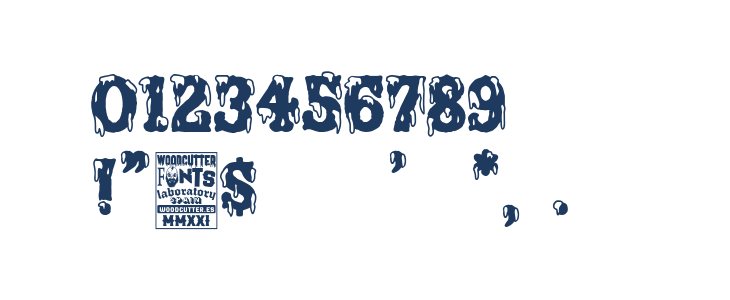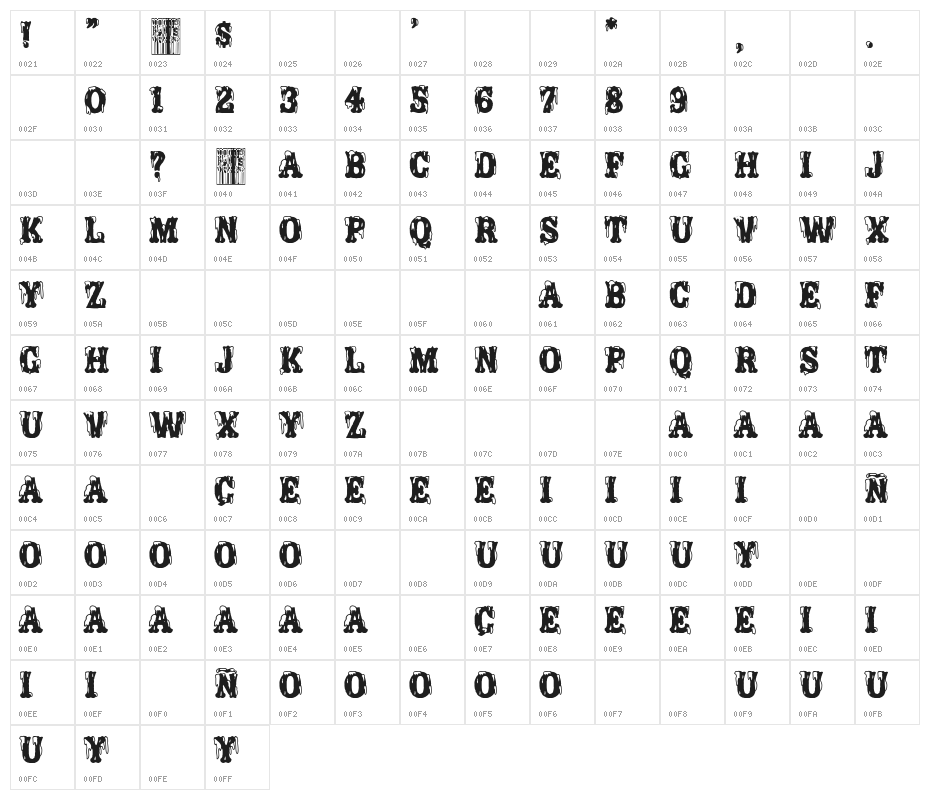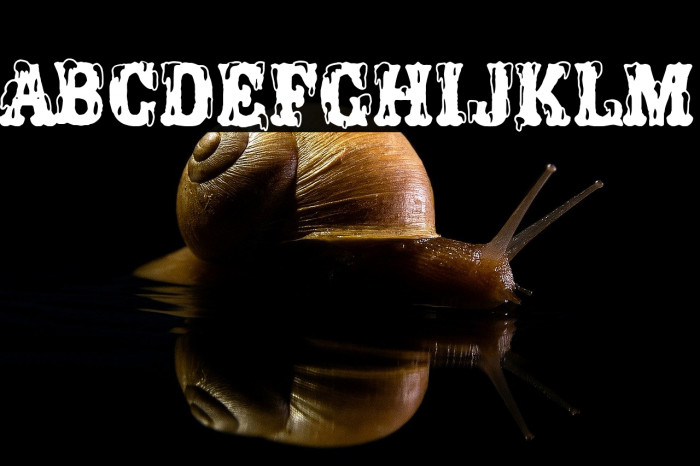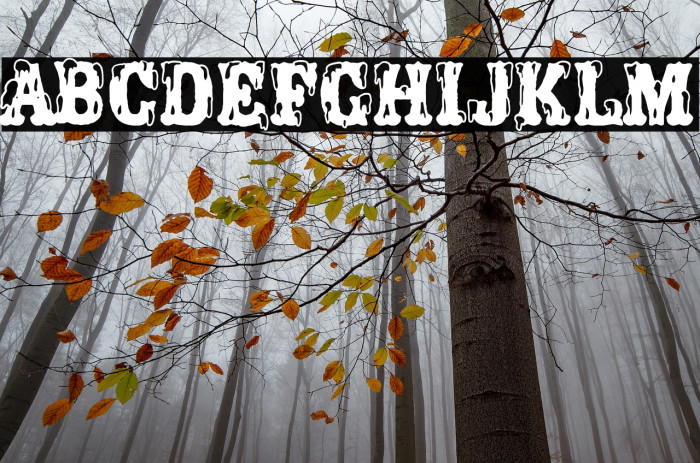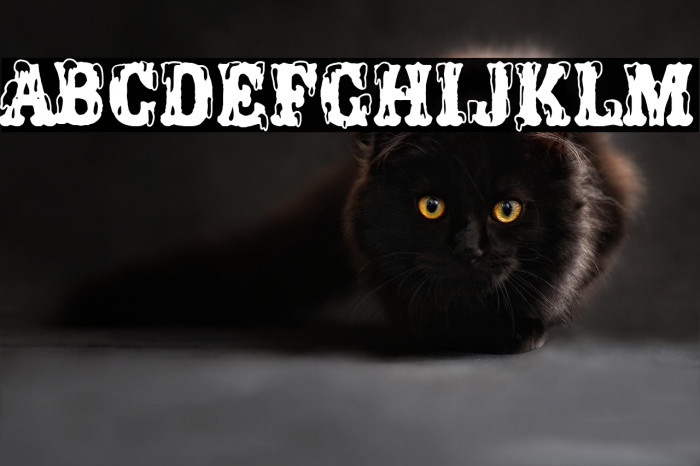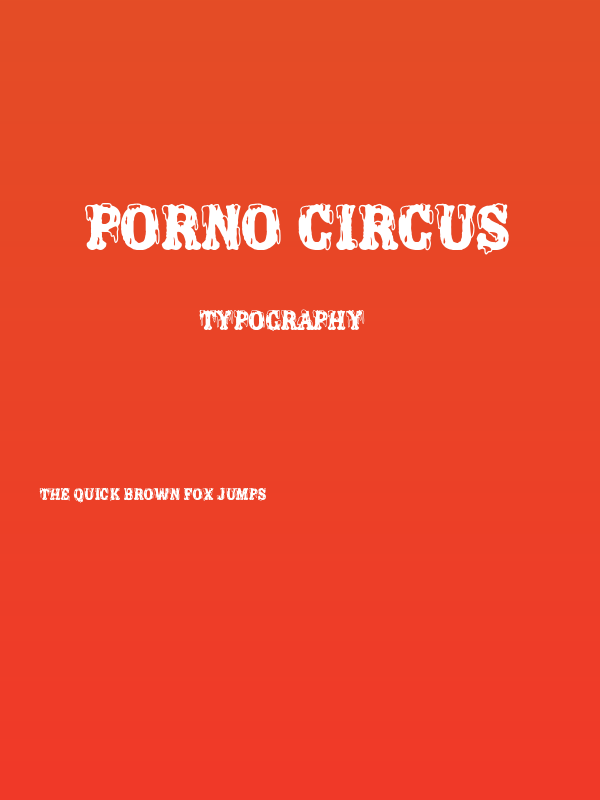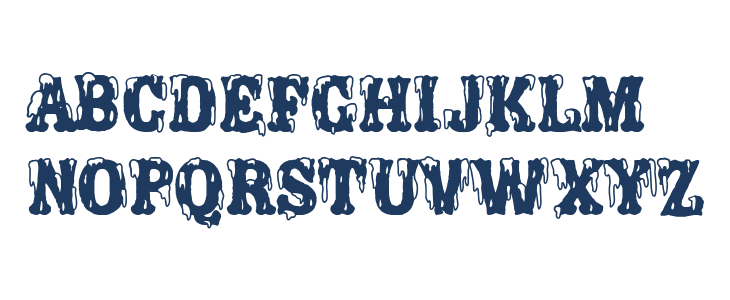
Porno Circus Font
Porno Circus Description
This font features a bold, dripping design that gives it a unique, eye-catching appearance. The letters appear as if they are melting or oozing, creating a dynamic and somewhat chaotic visual effect. The uppercase and lowercase letters maintain a consistent style, with each character exhibiting the same dripping motif. Numbers and special characters are also included, following the same design principles. This font is highly decorative, making it suitable for projects that require a strong visual impact. Its distinct style is reminiscent of horror or Halloween themes, making it ideal for seasonal designs or any project that aims to convey a sense of mystery or intrigue.
| Proposed Projects | Ideal for Halloween-themed designs, horror movie posters, or any project requiring a dramatic, decorative font. |